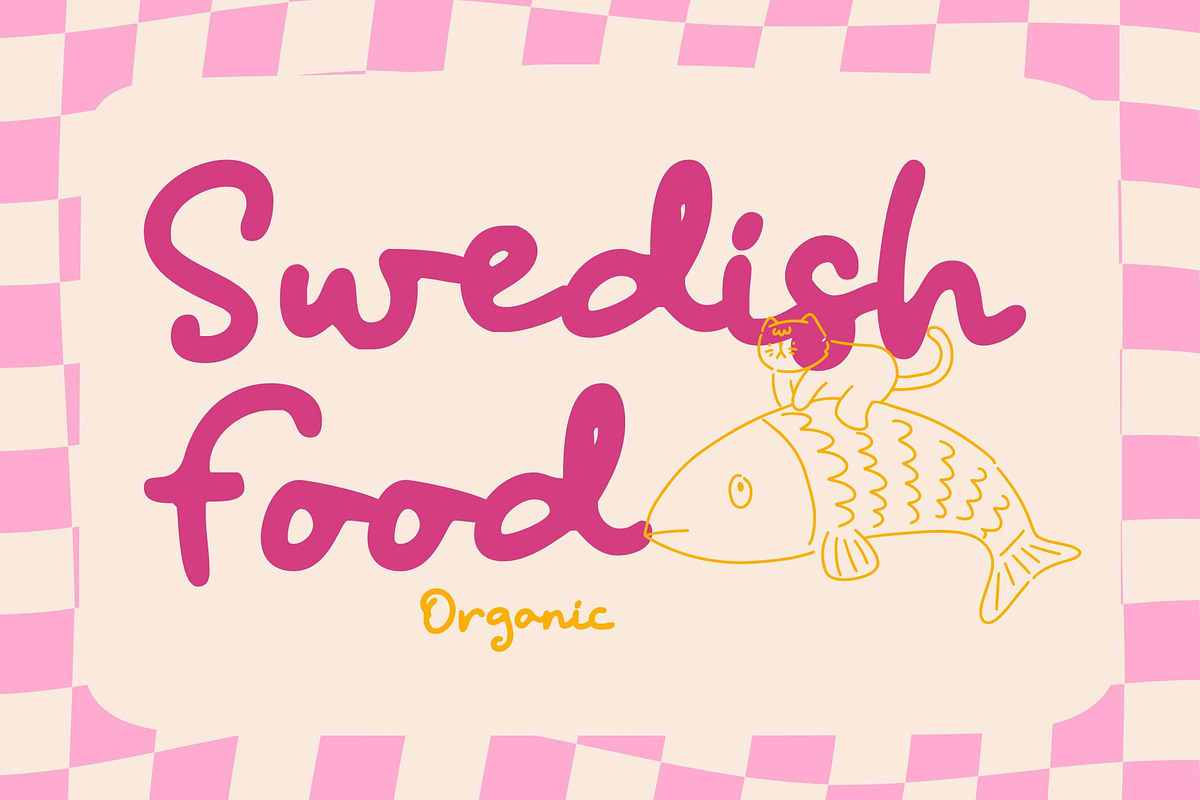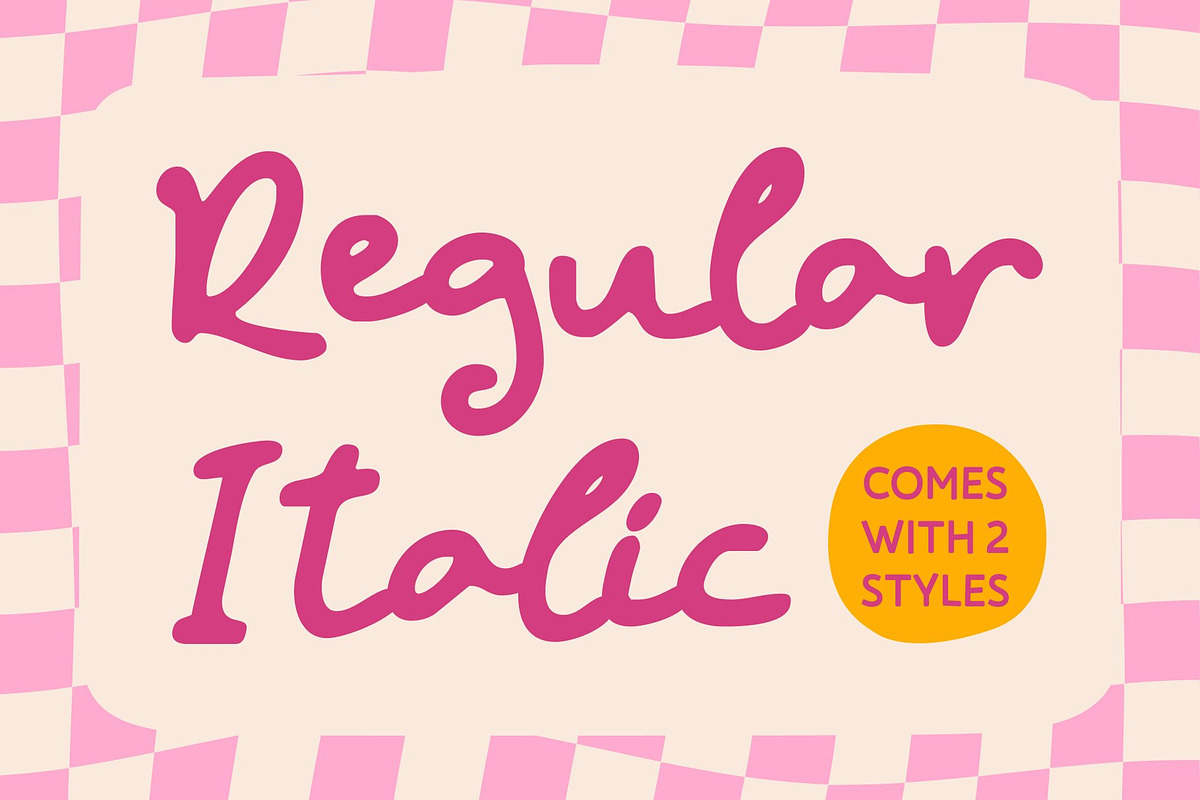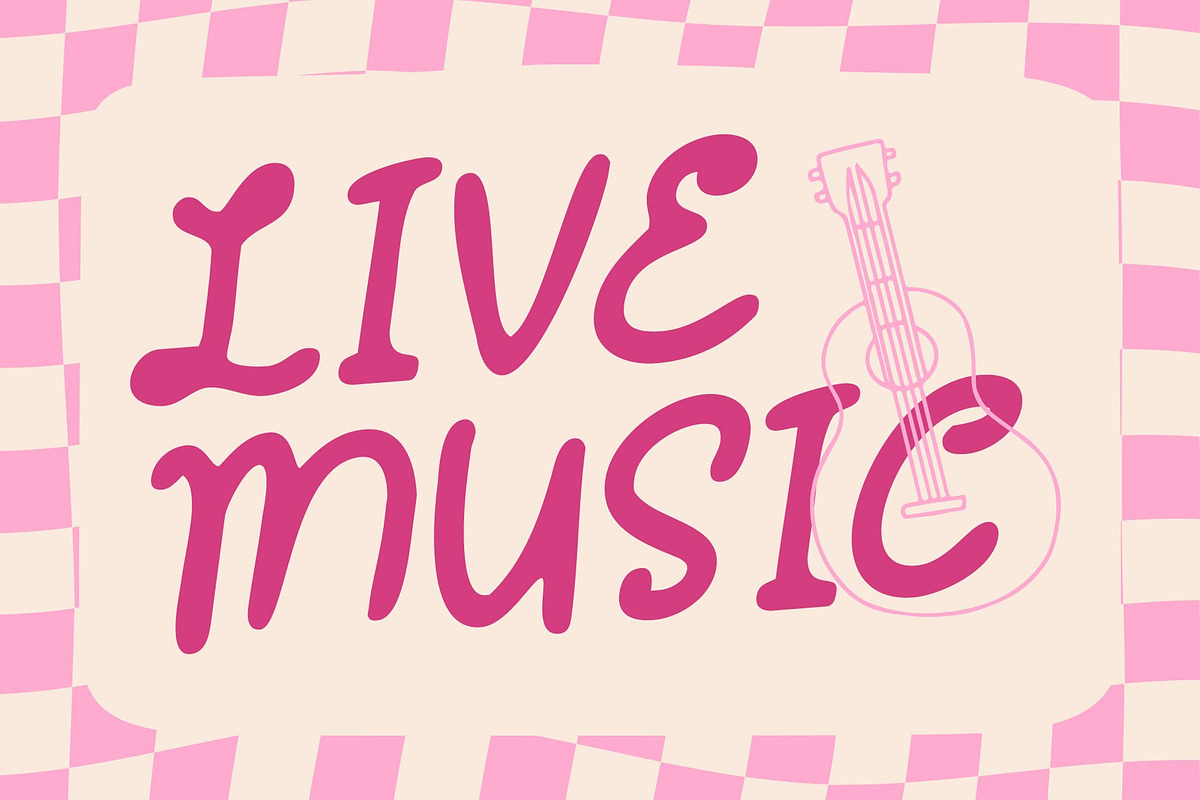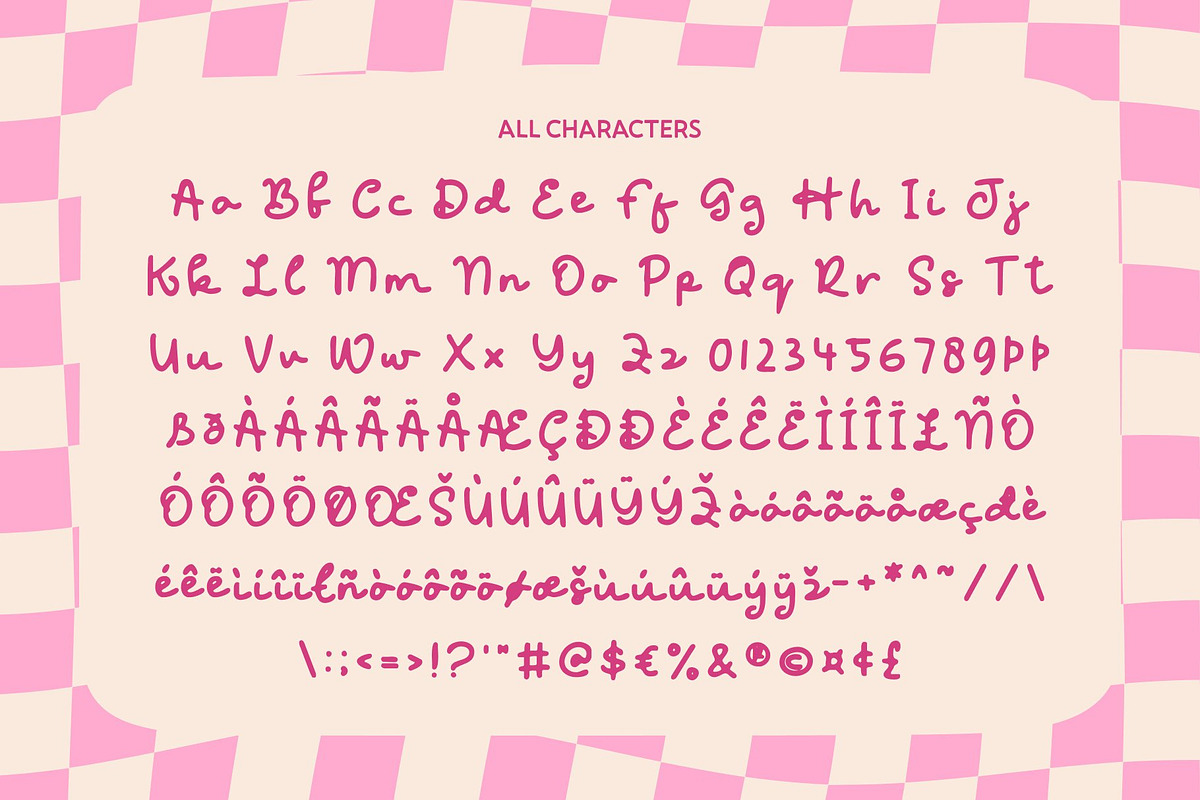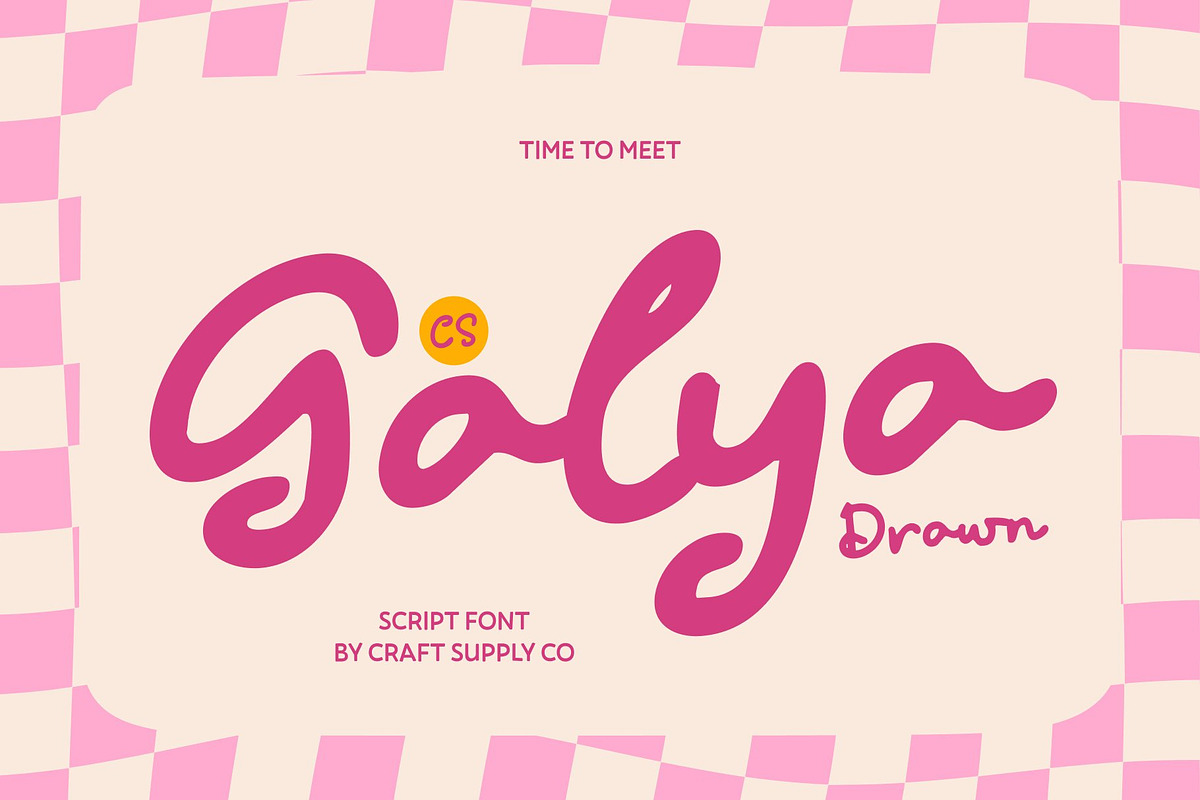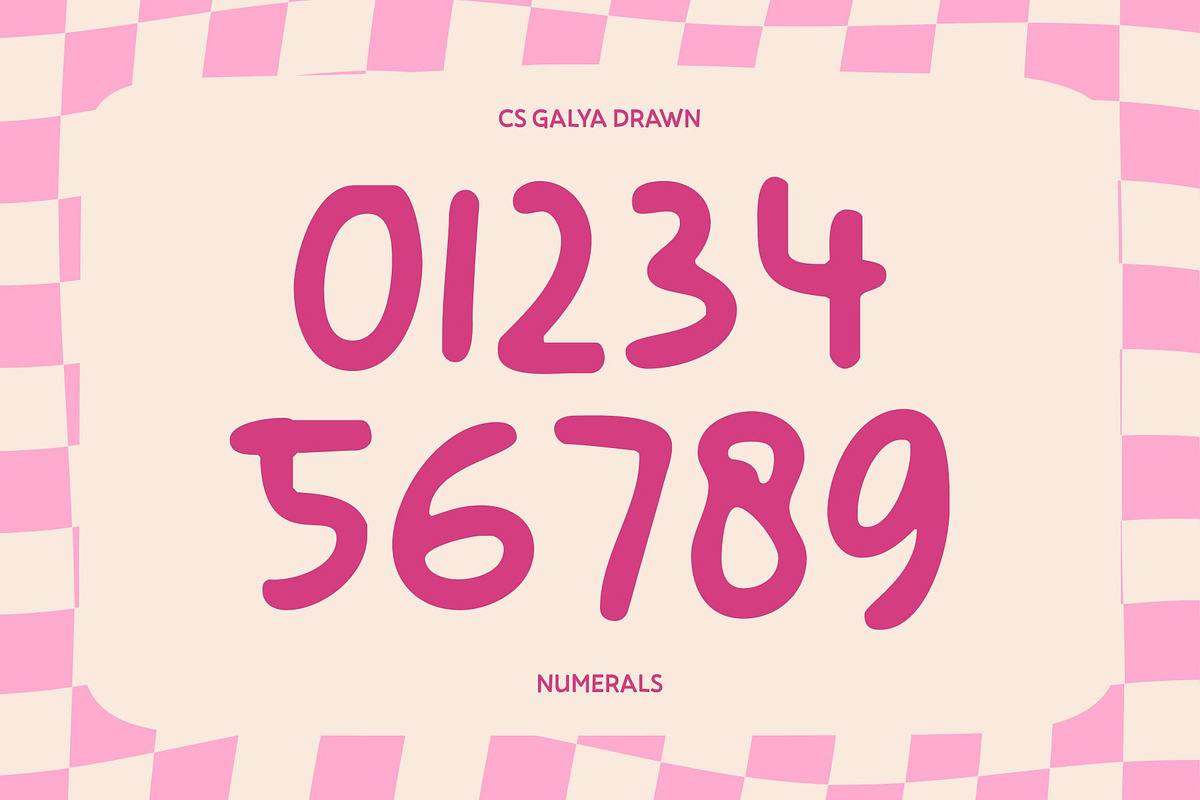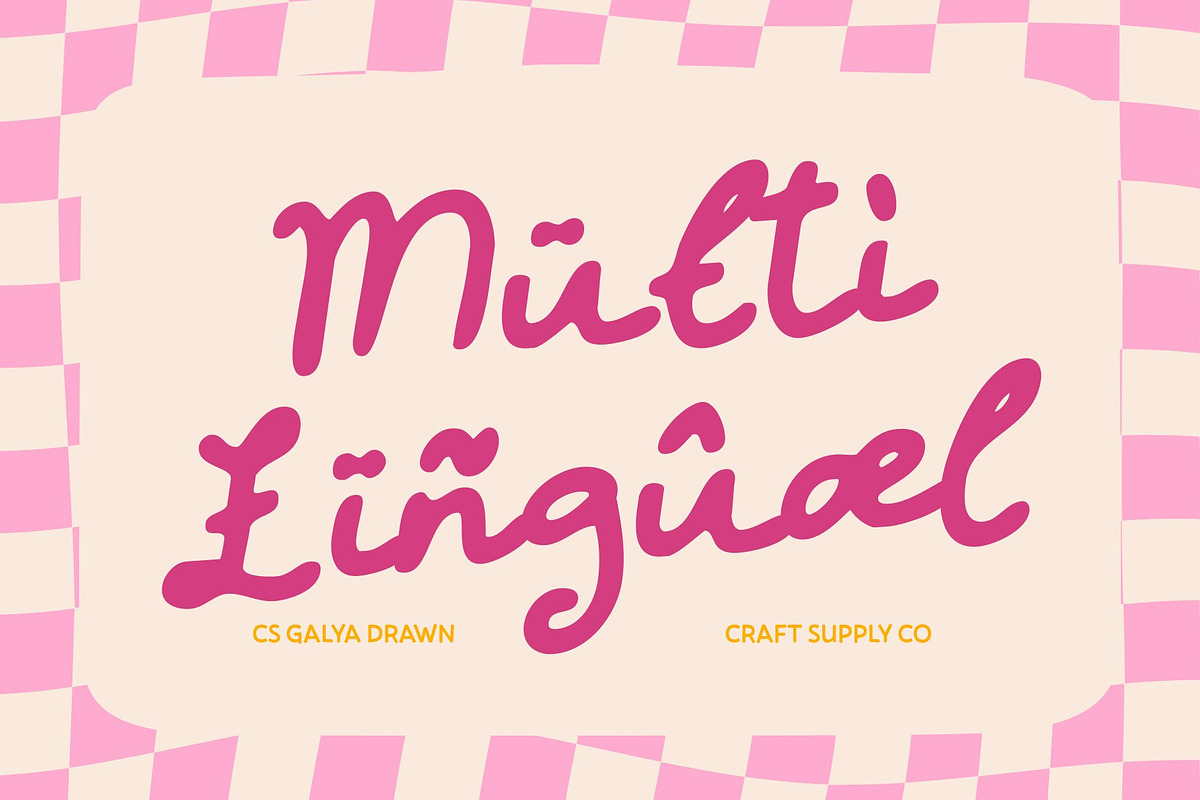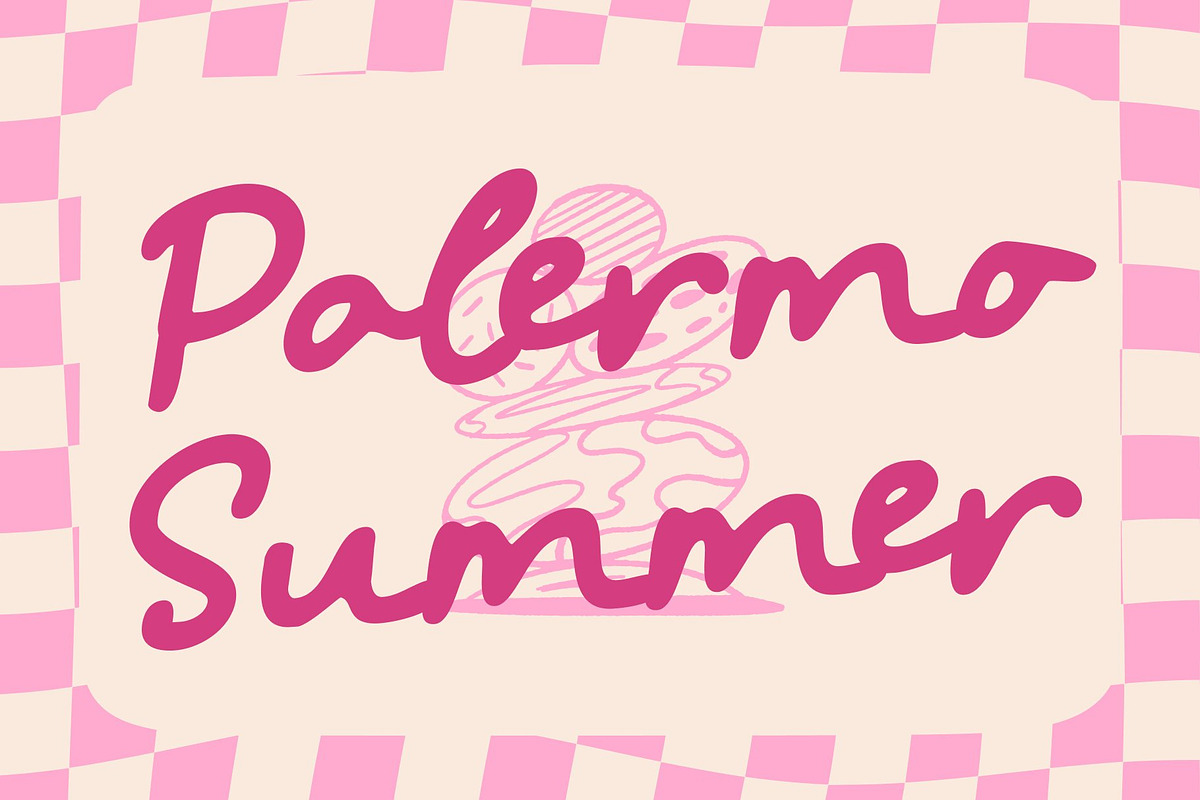
CS Galya Drawn
CS Galya Drawn – Sweet Script Font with Playful Charm
Sweet Script Style with Happy, Girly Personality This is a sweet script font designed to express happiness, fun, and a charming feminine touch. Its soft, flowing strokes and cheerful rhythm create a playful handwritten feel that instantly feels lighthearted and joyful. This font radiates sweetness and positivity, making every word feel friendly, cute, and full of summer vibes.
Playful Curves with Unique Drawn Texture Each letter is enhanced with a hand-drawn effect that adds subtle texture and artistic character. The drawn details give the font a unique, handmade personality, making it feel warm and expressive rather than overly polished. These gentle imperfections bring authenticity and visual interest, helping the font stand out with charm and individuality.
Fresh and Fun Expression for Sunny Designs With its lively flow and sweet appearance, this font is perfect for designs that celebrate fun moments and carefree moods. Its playful script style feels especially suited for cheerful themes, bringing a sense of joy and friendliness to every composition.
Perfect for Summer Branding, Menus, and Vacation Projects This font works beautifully for summer branding, café and dessert menus, vacation-themed visuals, packaging, social media graphics, and lifestyle designs. Its sweet, girly character and artistic drawn texture make it an ideal choice for projects that want to feel happy, inviting, and irresistibly charming.